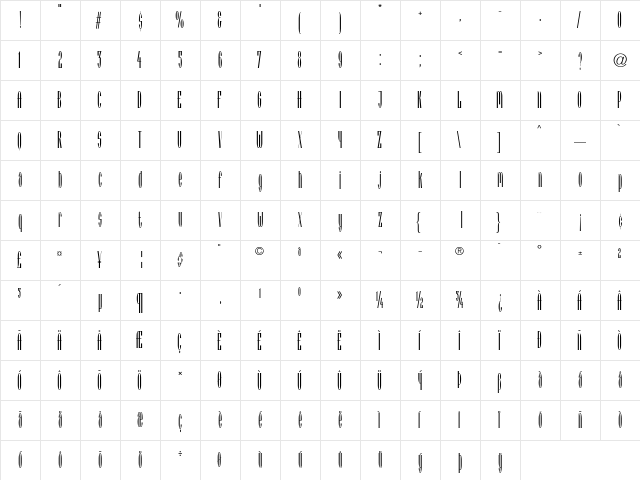
ArcadiaA Roman Font Preview
ArcadiaA Roman
Design Context for ArcadiaA Typeface
ArcadiaA is a composed and adaptable typeface that performs quietly and consistently across a wide range of design contexts.